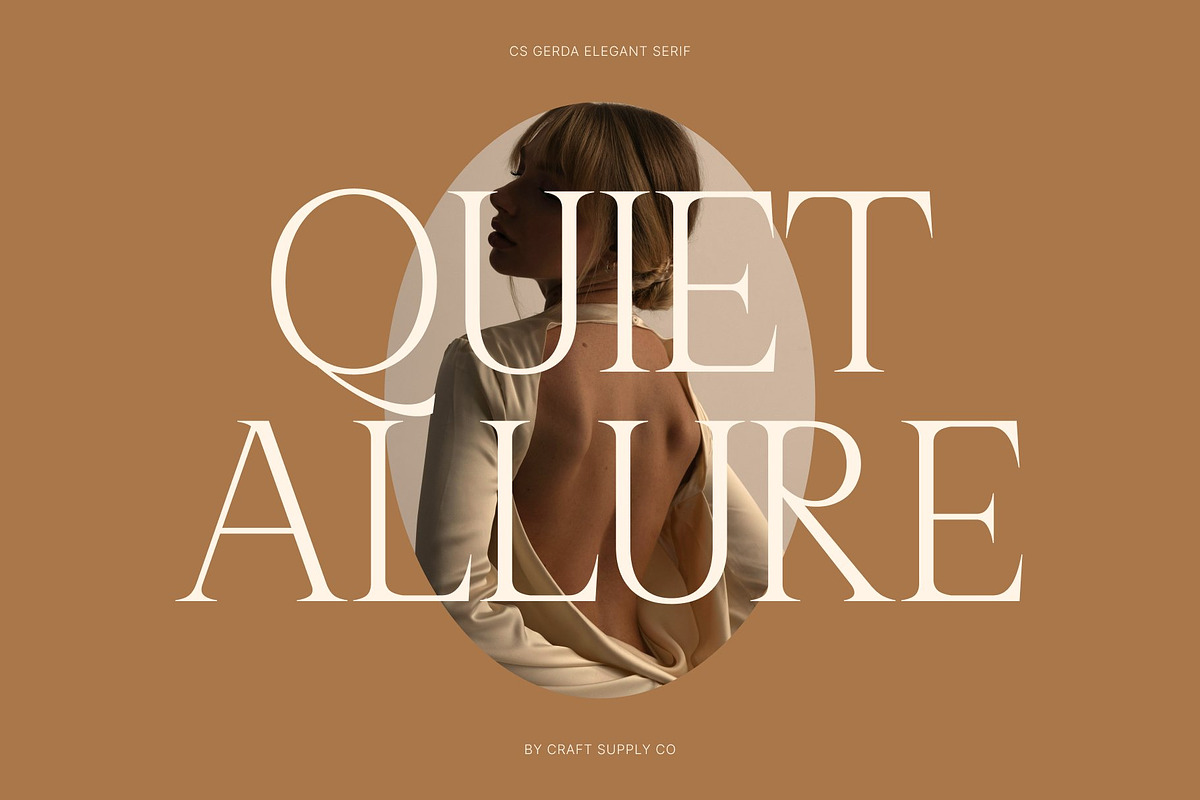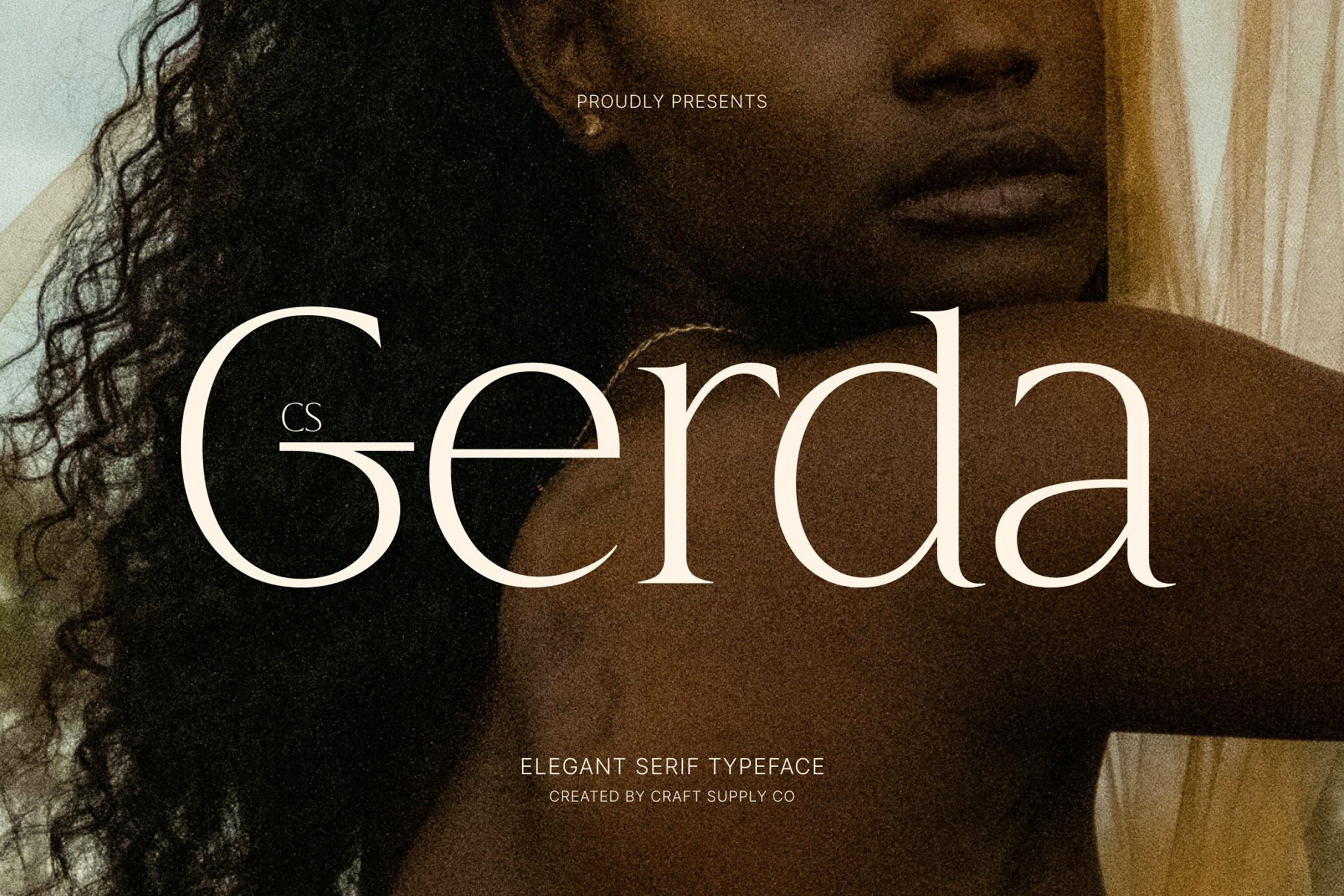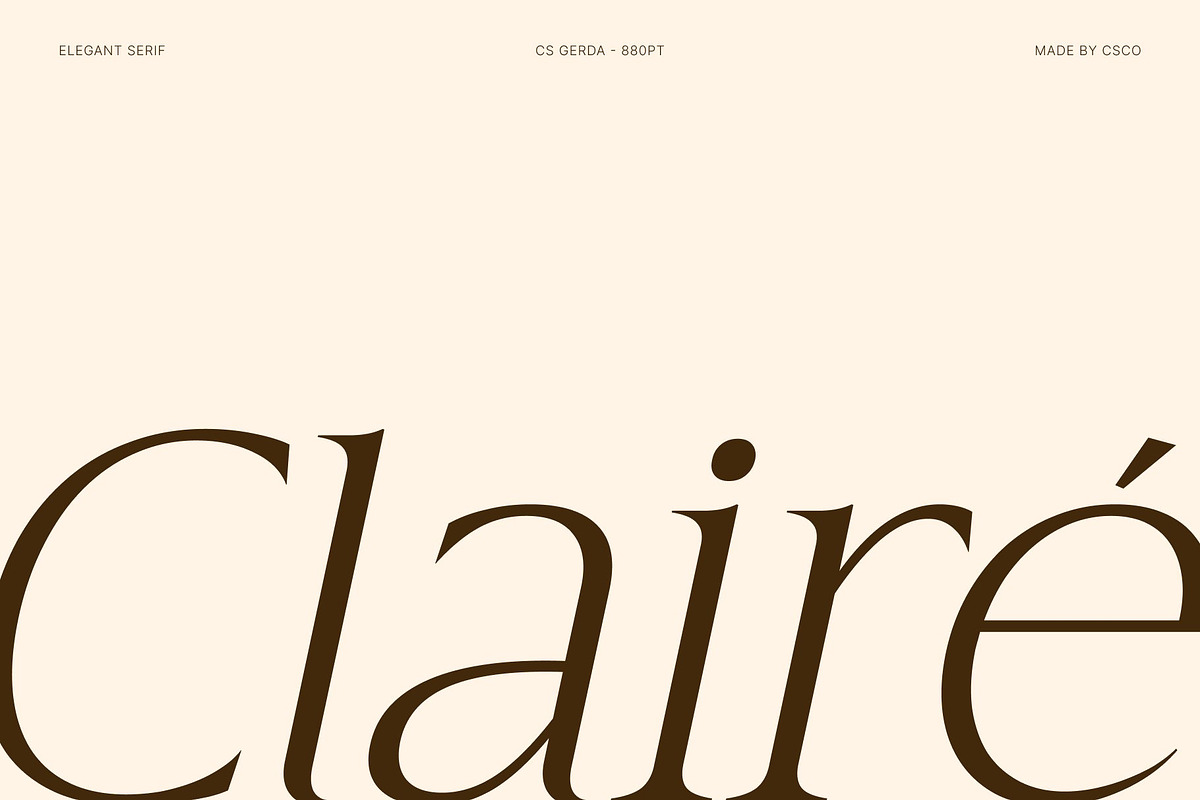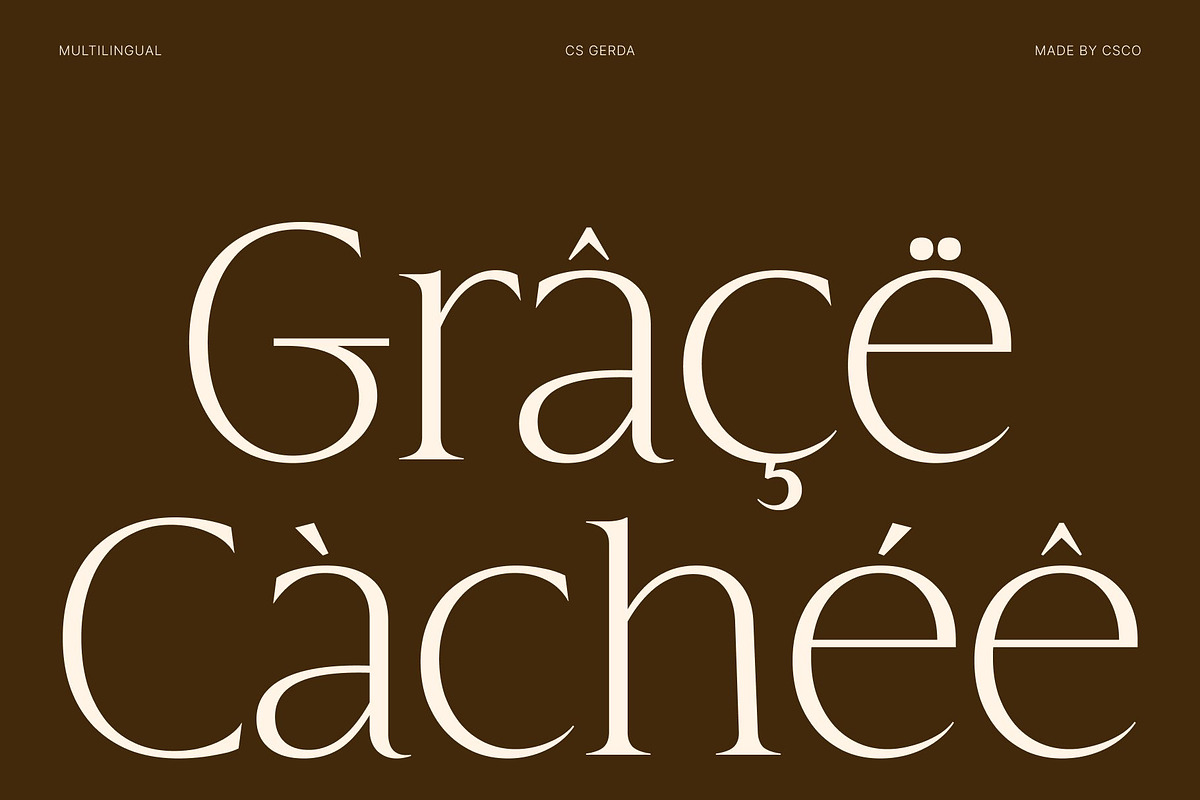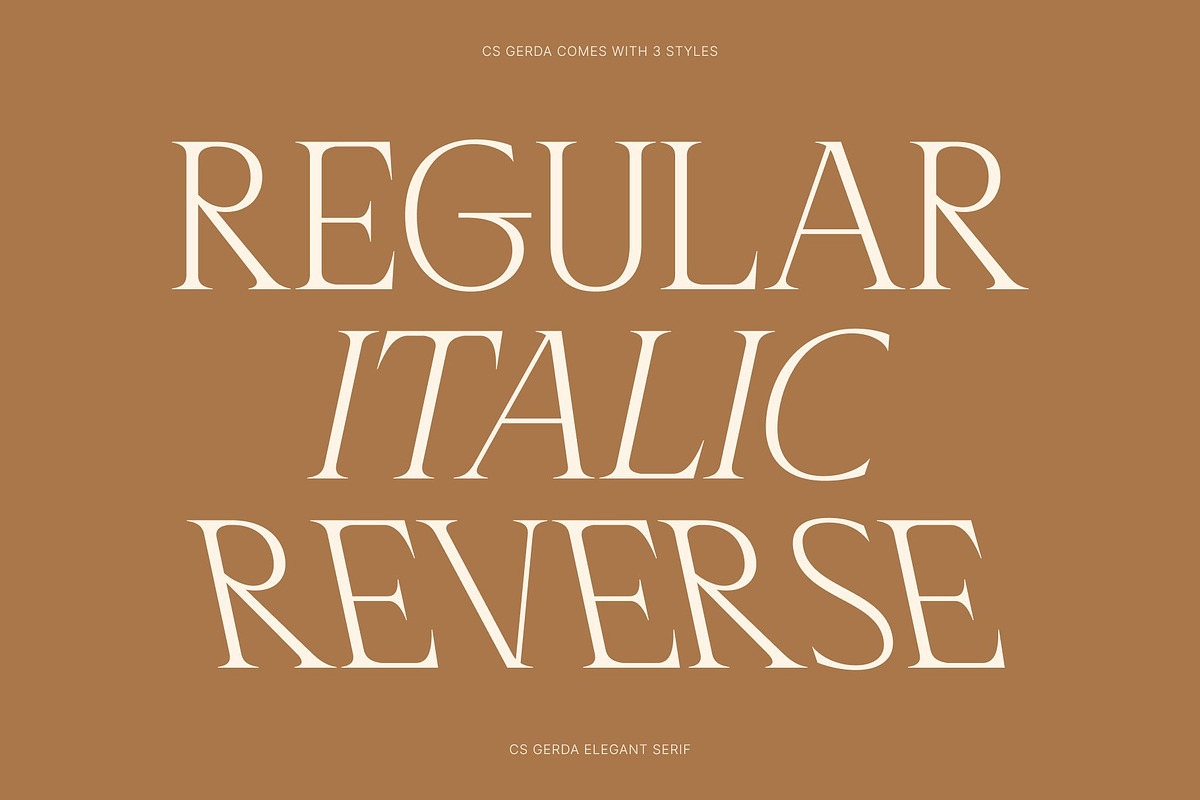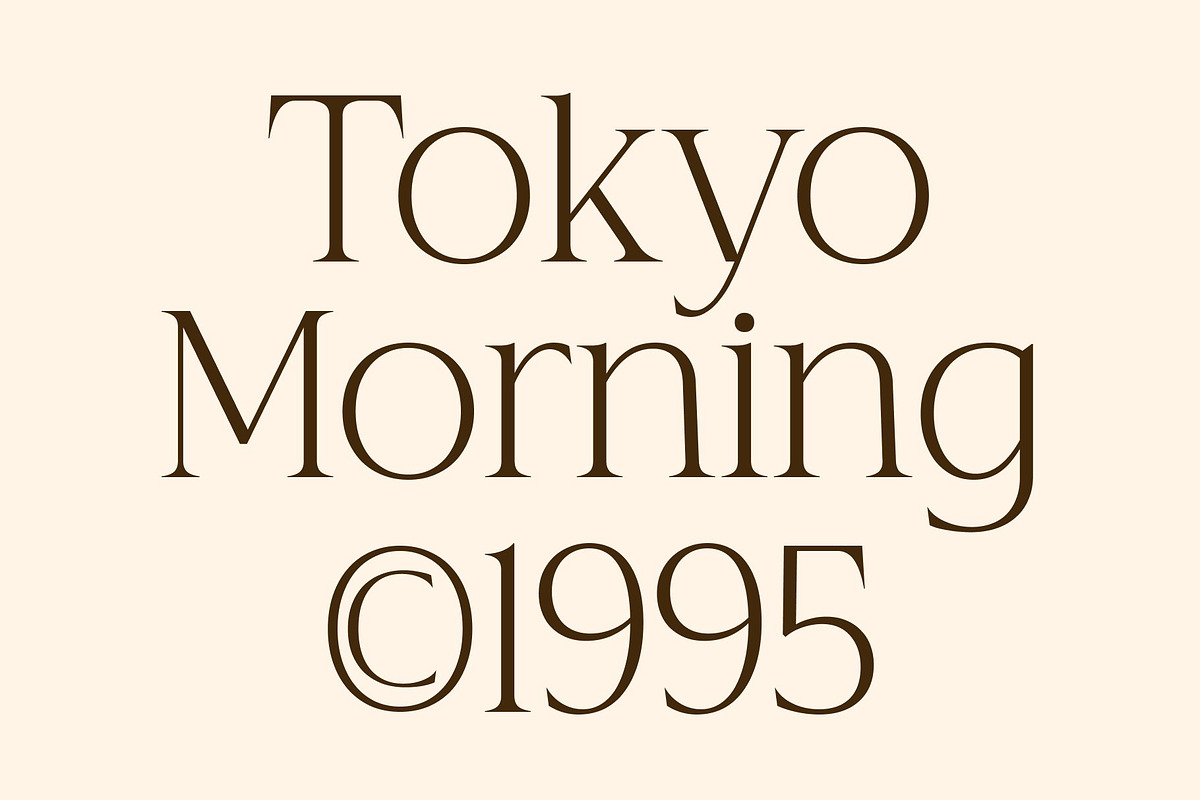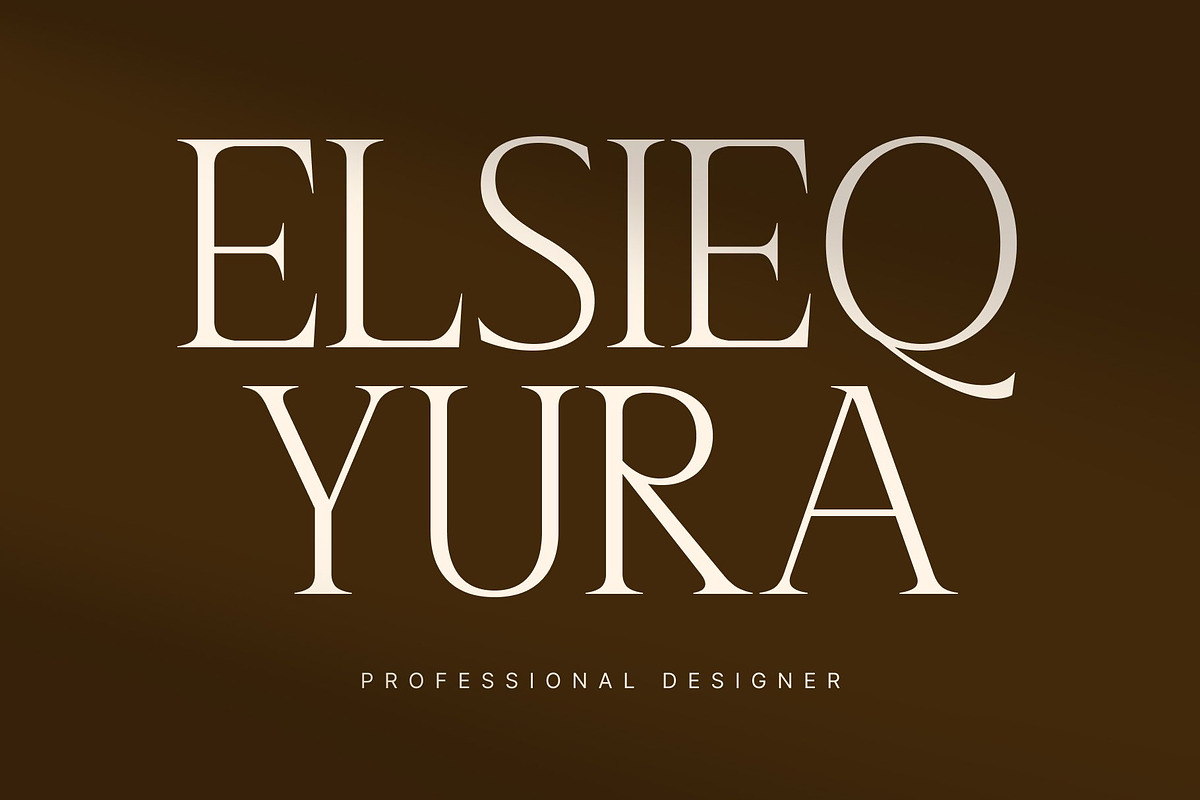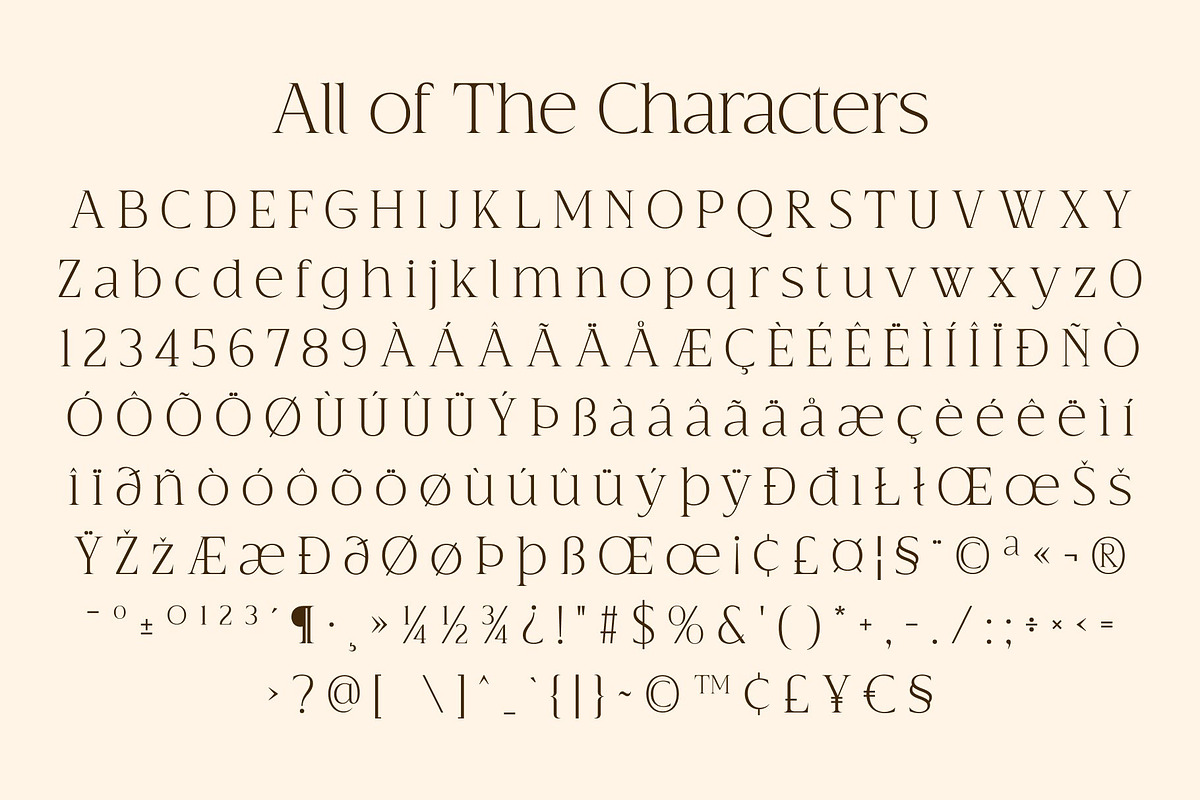
CS Gerda – Elegant Serif Font
CS Gerda – Modern Serif Font with Refined Luxury
Modern Serif with Elegant Character This is a modern serif font designed to radiate refinement, grace, and timeless sophistication. With its elegant serif details and balanced proportions, this typeface creates a luxurious visual tone that feels both contemporary and classic. It is crafted for designers who want typography that communicates prestige and beauty with effortless style.
Graceful Letterforms with Sophisticated Presence The carefully sculpted serifs and smooth curves give this font a polished and refined personality. Each character is designed to appear graceful and harmonious, allowing text to feel elevated and professional. This refined structure enhances readability while adding a distinctive sense of elegance to every composition.
Perfect Balance of Classic and Modern Style This font blends traditional serif influence with modern design sensibilities. The result is a versatile typeface that feels timeless yet fresh, making it suitable for contemporary creative work. Its balanced proportions and stylish details help designs feel luxurious without appearing overly formal.
Ideal for Luxury Branding and Editorial Design From high-end branding and packaging to editorial layouts and posters, this font adapts beautifully to projects that demand elegance and sophistication. Its refined aesthetic ensures every headline, title, and logo feels premium, stylish, and visually captivating.
CS Gerda Regular
CS Gerda Italic
CS Gerda Reverse Italic